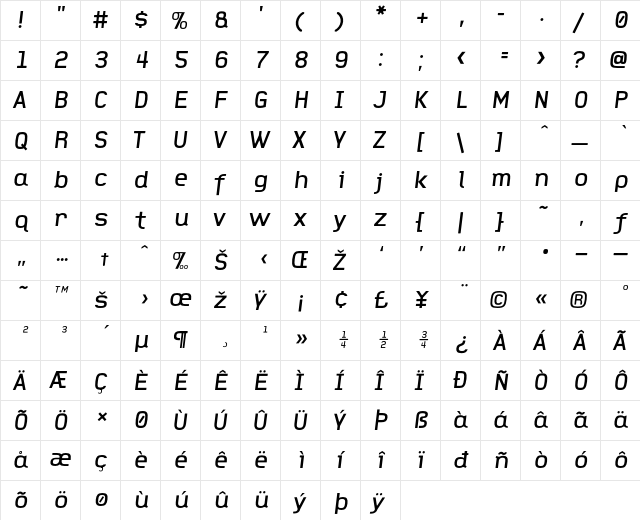
FauxCRA Italic Font Preview
FauxCRA Italic
FauxCRA Italic Font Details
Design Context for FauxCRA Typeface
FauxCRA takes a measured approach to typography — its balanced proportions and neutral character make it a reliable workhorse for both digital and print work. The slanted form adds forward momentum and visual energy.
Pro Tip: Try FauxCRA for annotation and caption copy alongside an upright companion — the contrast in angle creates a dynamic but ordered typographic system.